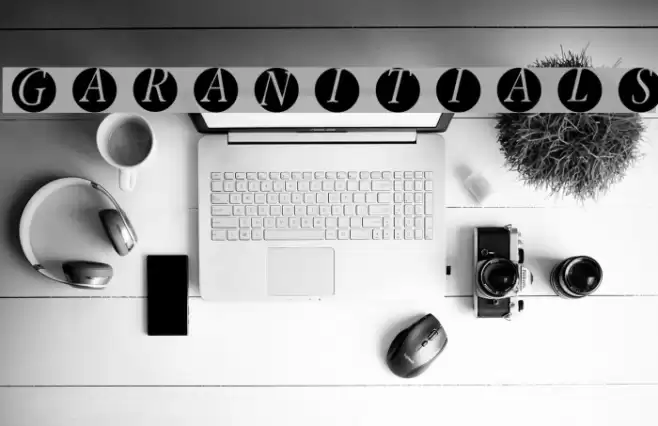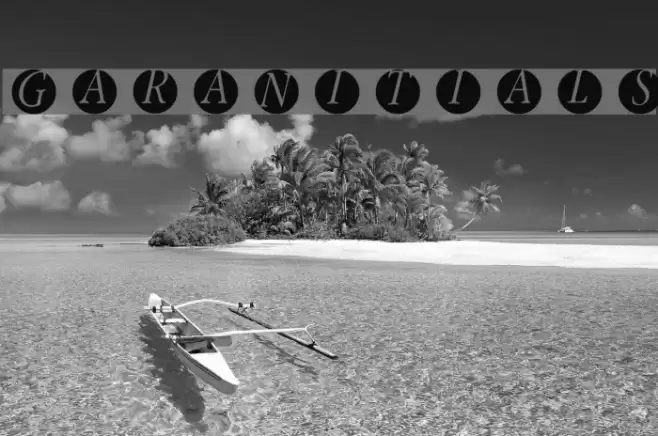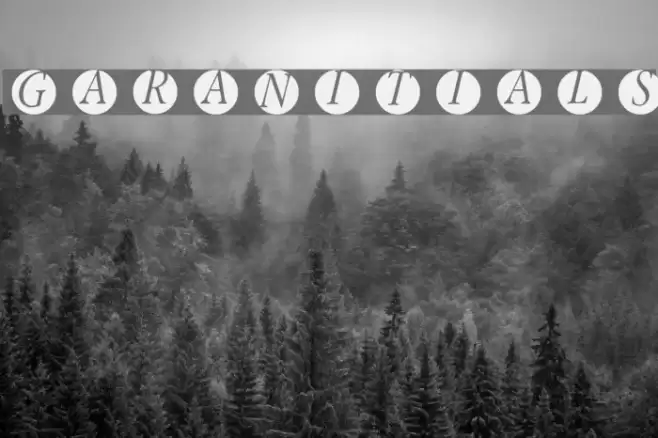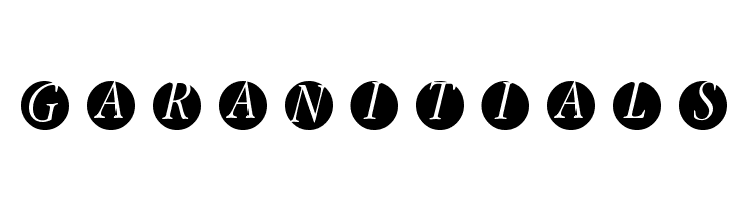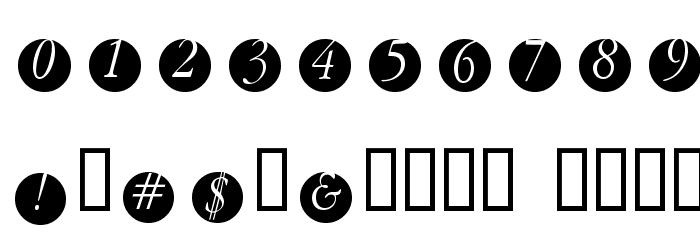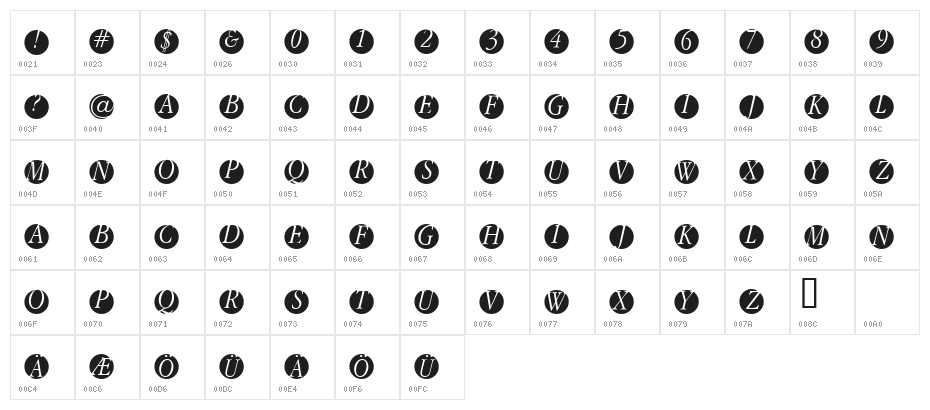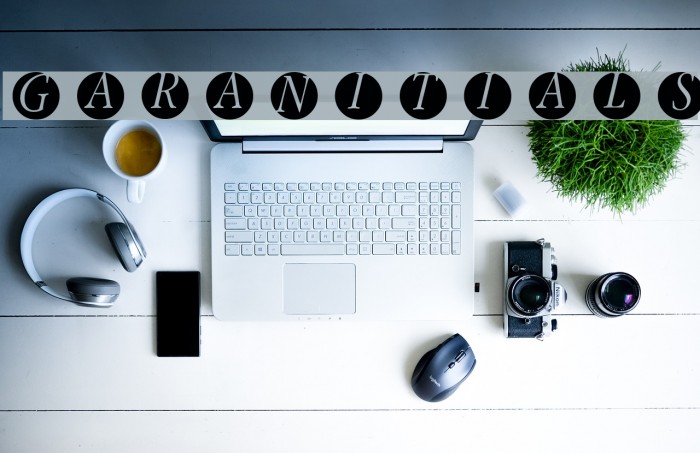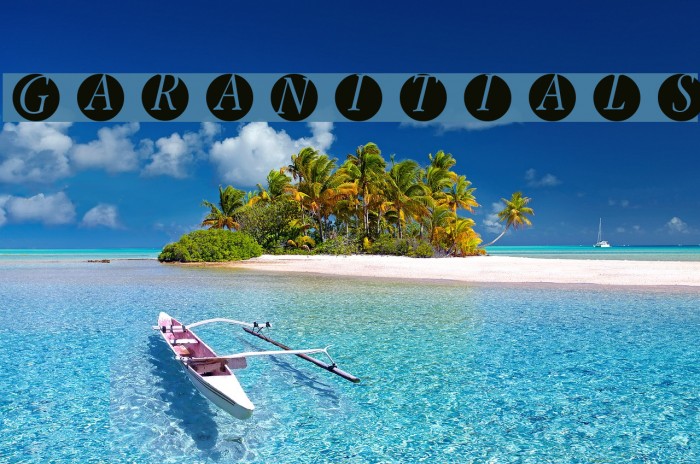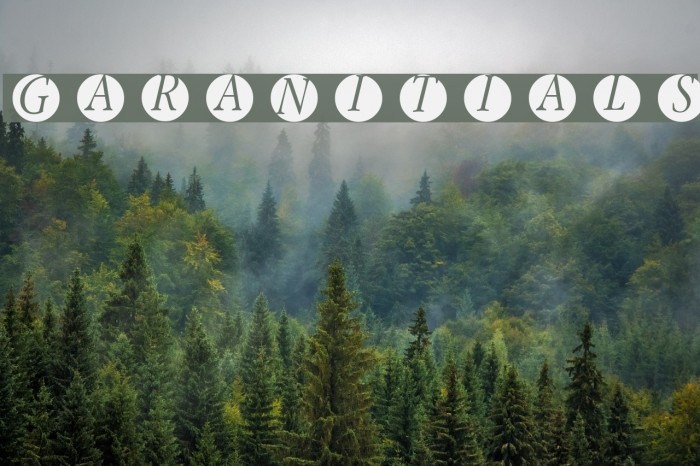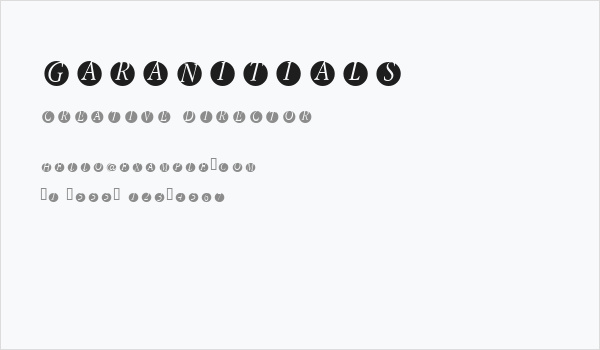
GaraNitials Font
GaraNitials Description
This font features a unique and stylish design, with each character elegantly enclosed within a solid black circle. The letters are crafted in a script style with a slight slant, giving them a dynamic and sophisticated appearance. The contrast between the bold black circles and the delicate white script letters creates a striking visual effect. This font is particularly suitable for decorative purposes, where a touch of elegance and flair is desired. The numbers and special characters follow the same design principle, ensuring consistency across all elements.
A decorative script font with letters enclosed in bold black circles from Uncategorized fonts.
- Proposed Projects: Ideal for branding, invitations, greeting cards, and decorative headings.
- Use Case: Logos, Invitations, Decorative headings